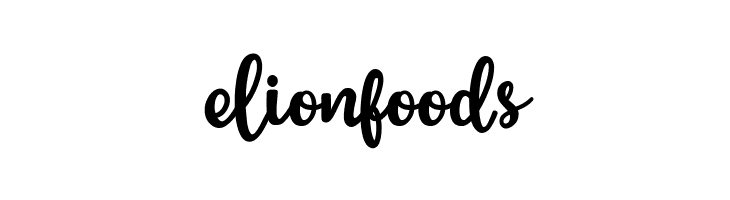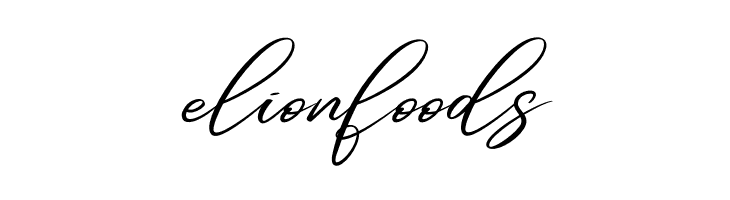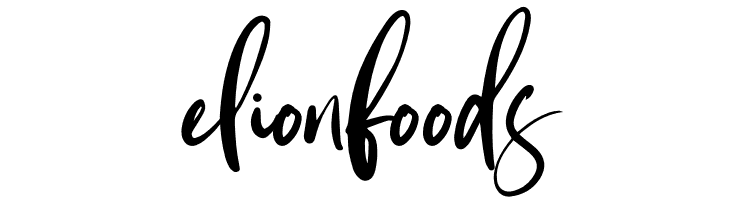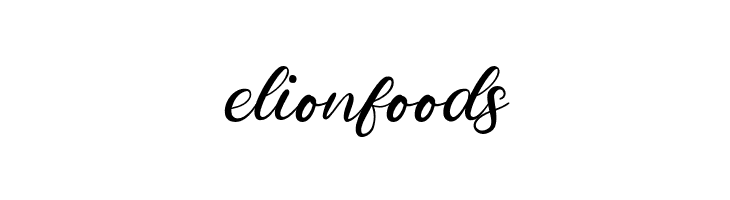
A flowing, elegant script font with interconnected letters and a modern twist.
A flowing script font with elegant loops and a sophisticated style.
A graceful and flowing script font with elegant cursive characters.
A playful and flowing script font with a handwritten appearance.
A dynamic and expressive handwritten font with fluid, flowing letterforms.
A graceful script font with a calligraphic, interconnected style.
An elegant script font with flowing, cursive letterforms and sophisticated style.
An elegant script font with flowing, cursive letterforms and a classic, decorative style.
An abstract, artistic font with intricate, swirling designs.
An elegant script font with intricate swirls and high contrast, ideal for formal designs.